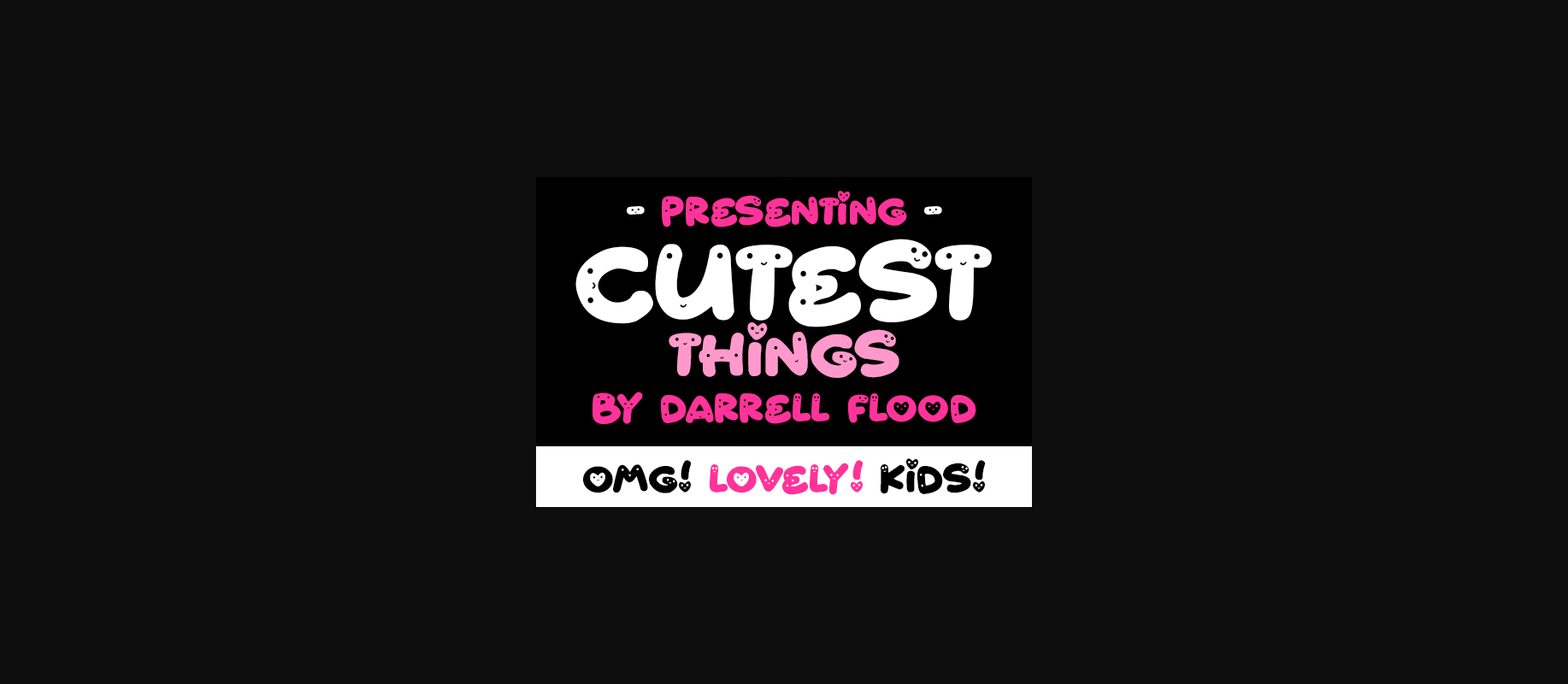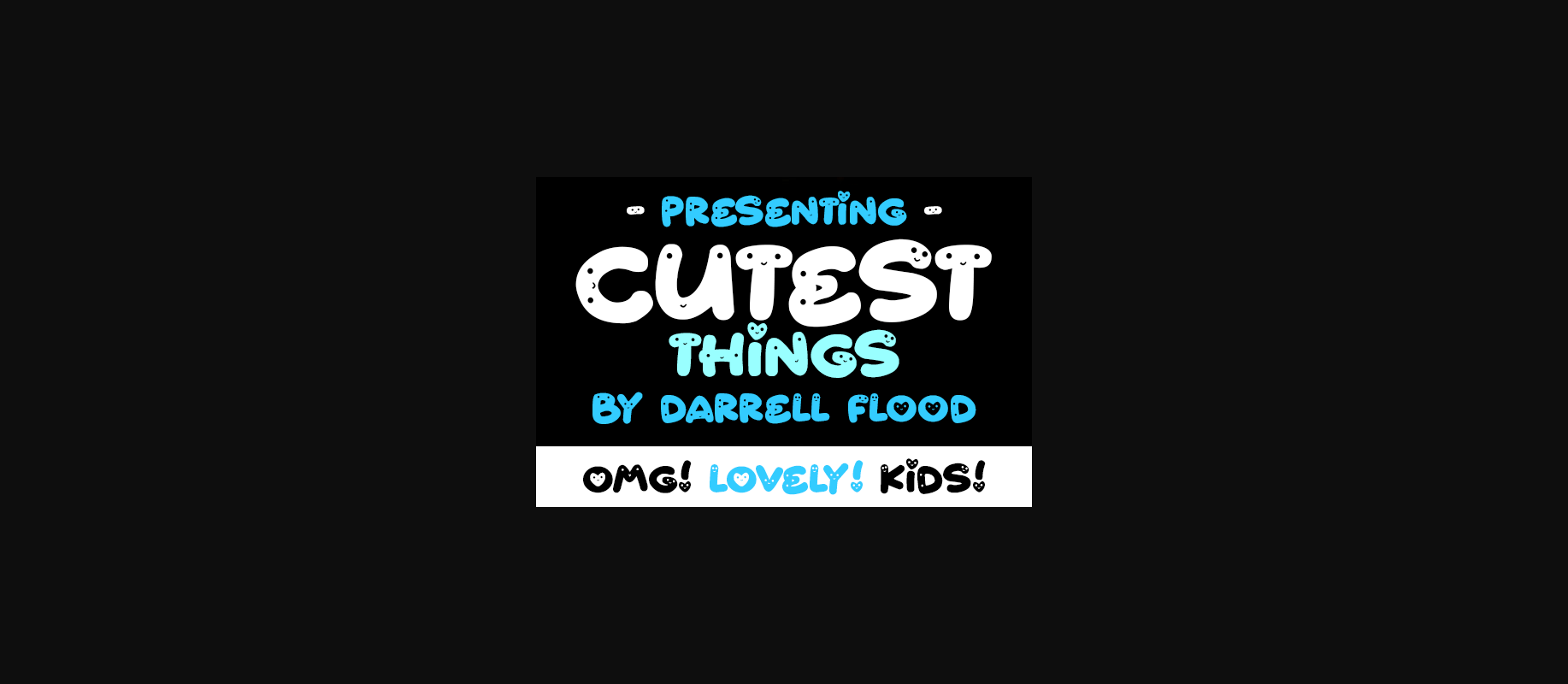
About Cutest Things Font
Cutest Things is a fun, expressive font in an inviting, playful style! Each character has a little face on it! Perfect for cartoons and comics for kids and light family themes!